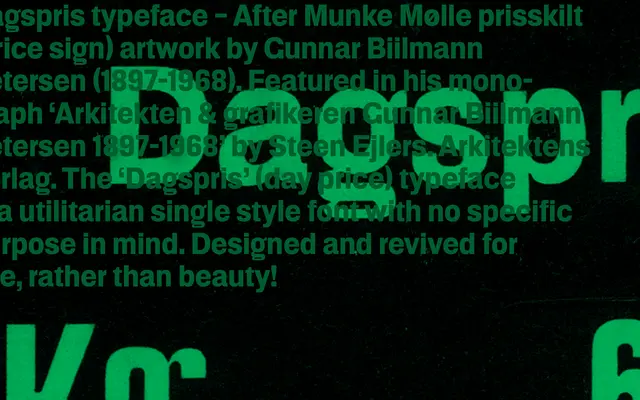
Dagspris
A2-Type · Gunnar Biilmann Petersen (original), A2-Type (revival)
Dagspris specimen from A2-Type
A single-style revival of a handcrafted Danish price-sign lettering originally created by architect and designer Gunnar Biilmann Petersen for Munke Mølle.
Based on a handmade price sign by Danish architect and designer Gunnar Biilmann Petersen (1897-1968), the typeface carries the directness and slight irregularity of its retail signage origins. A2-Type have revived it as a single Regular weight intended for everyday use rather than purely archival display. Its utilitarian source material gives it an unpretentious quality suited to packaging, editorial and branding projects seeking a vernacular Scandinavian flavour.
A single-style revival of a handcrafted price sign lettering, giving it a utilitarian, vernacular display character rather than the refinement of a text face.